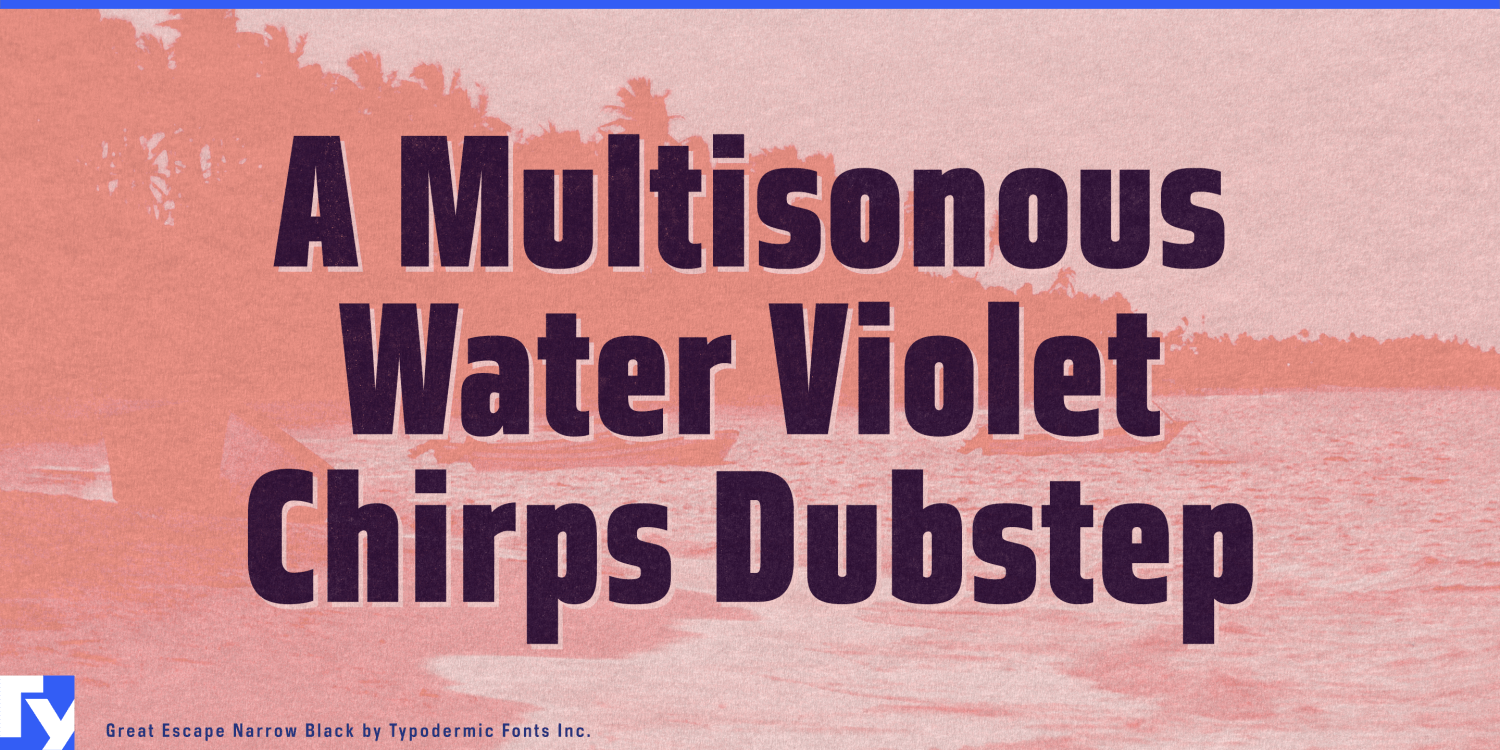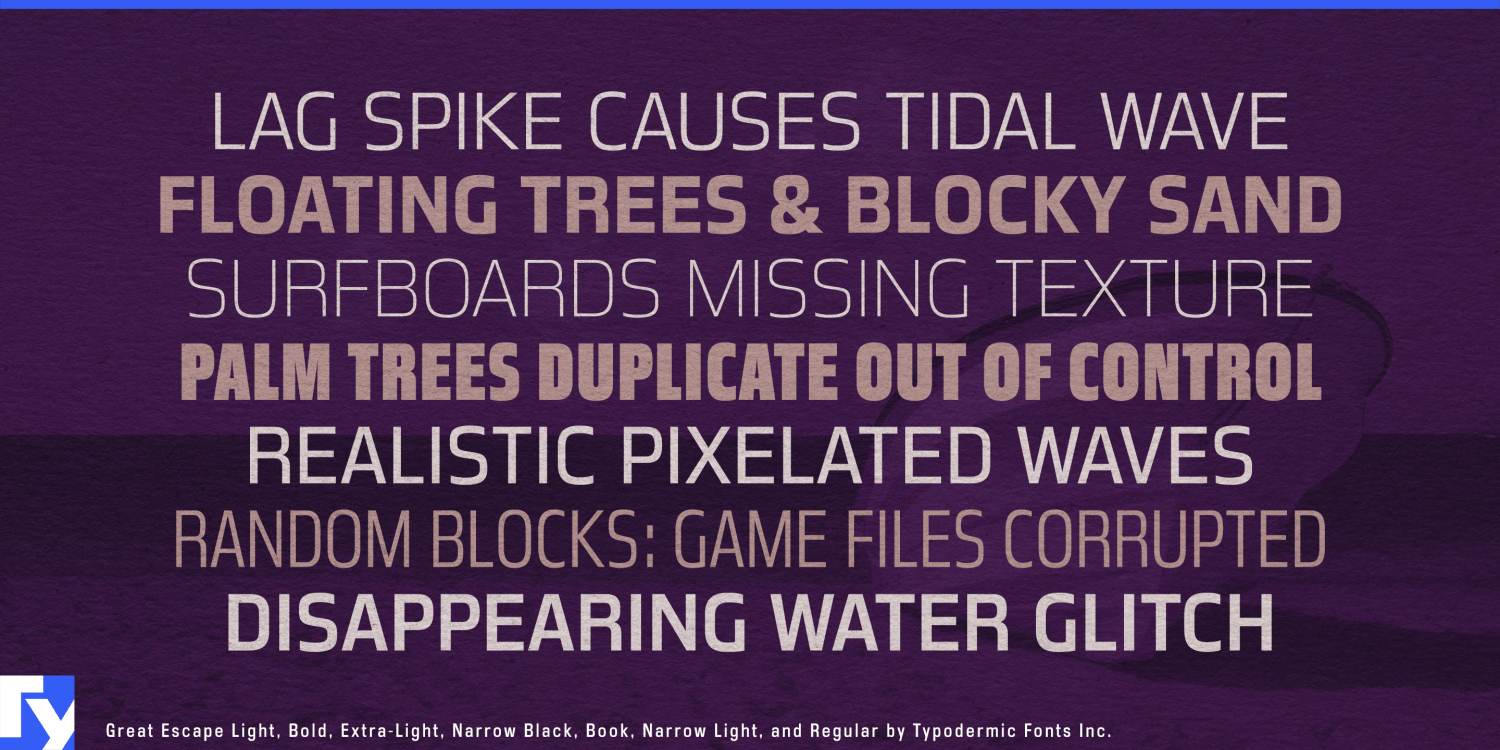
About Great Escape
Prepare for typographic liberation with Great Escape, a font that doesn’t just break free from convention—it redefines the very notion of typographic freedom. This isn’t just a typeface; it’s a masterclass in modern design, a bold…